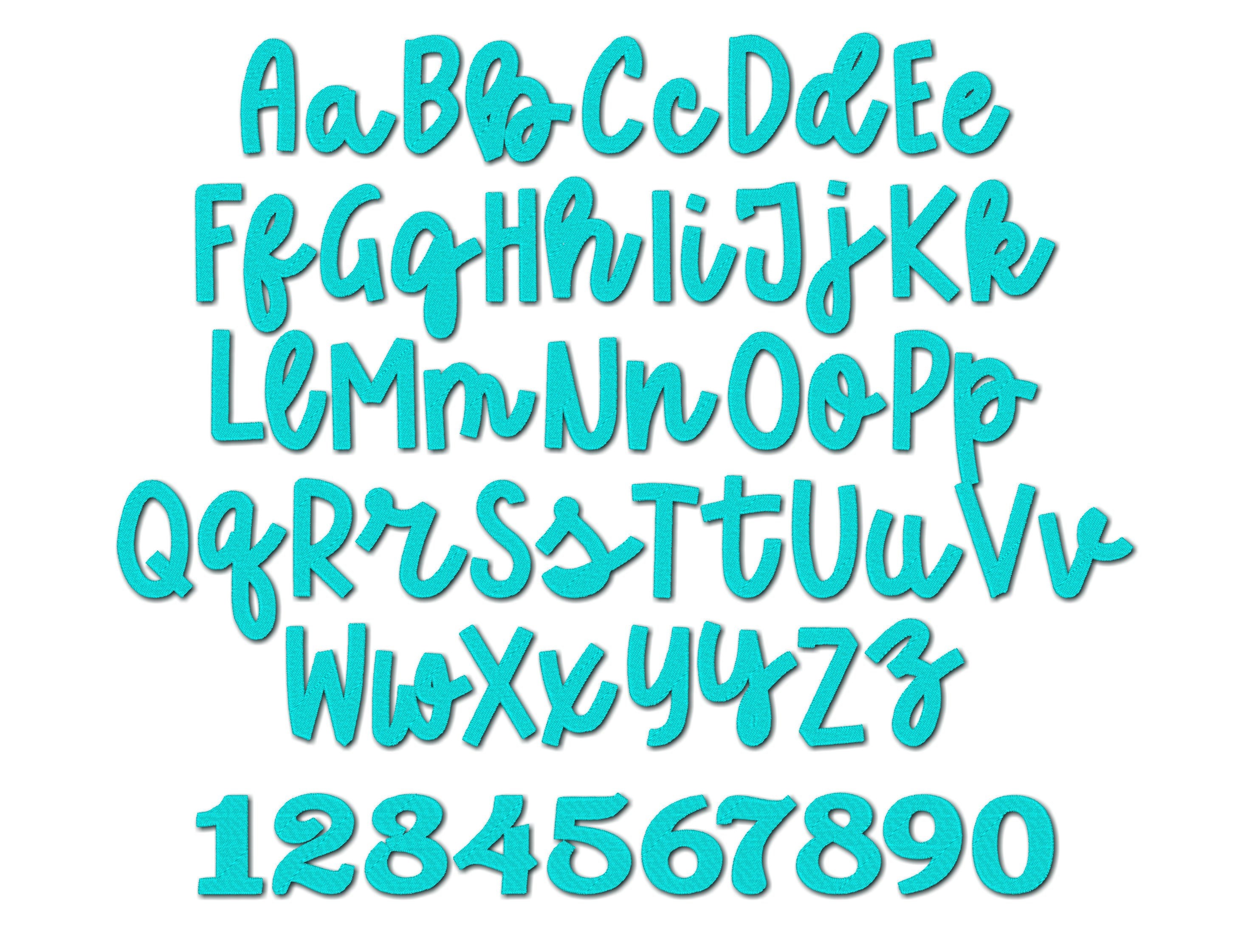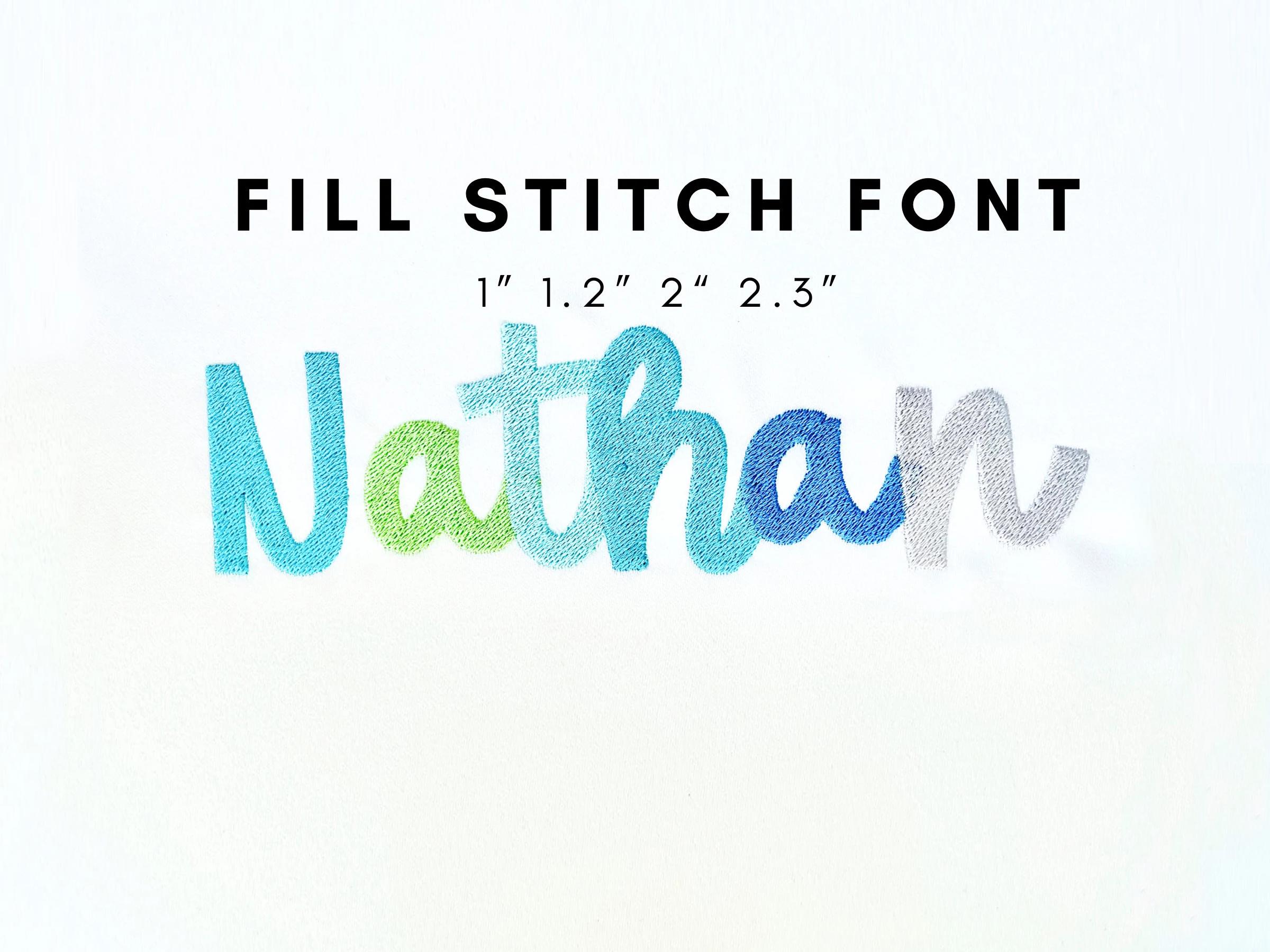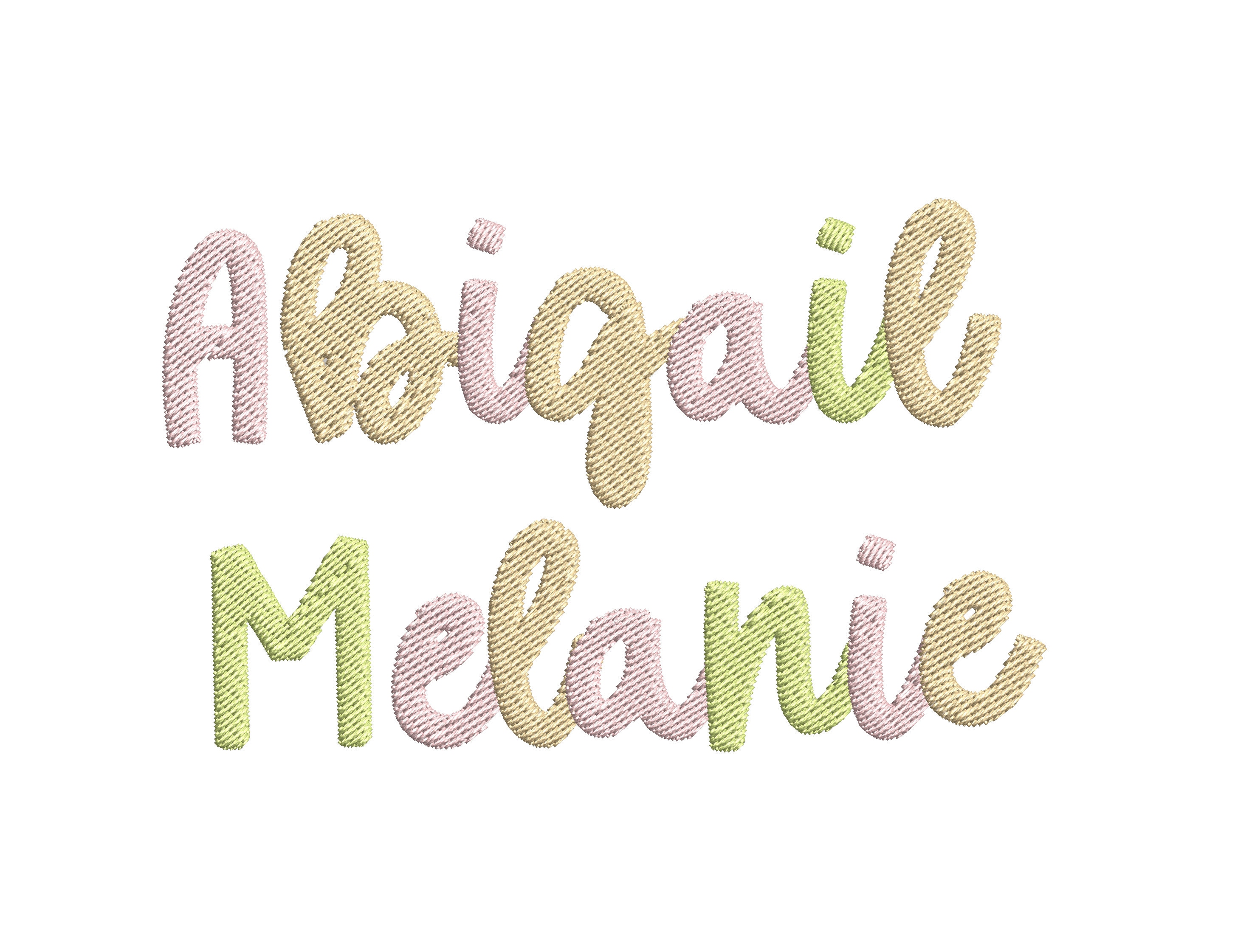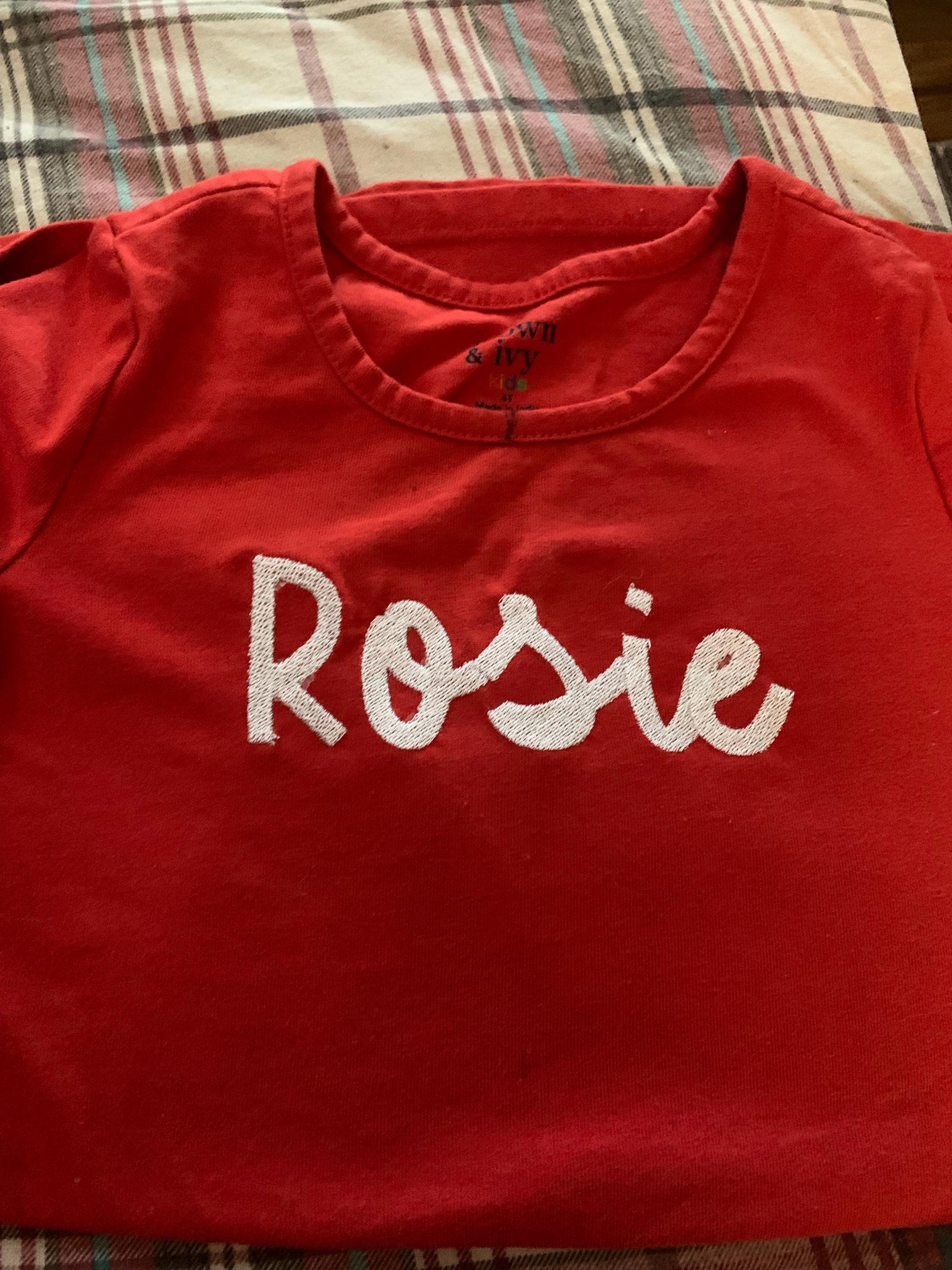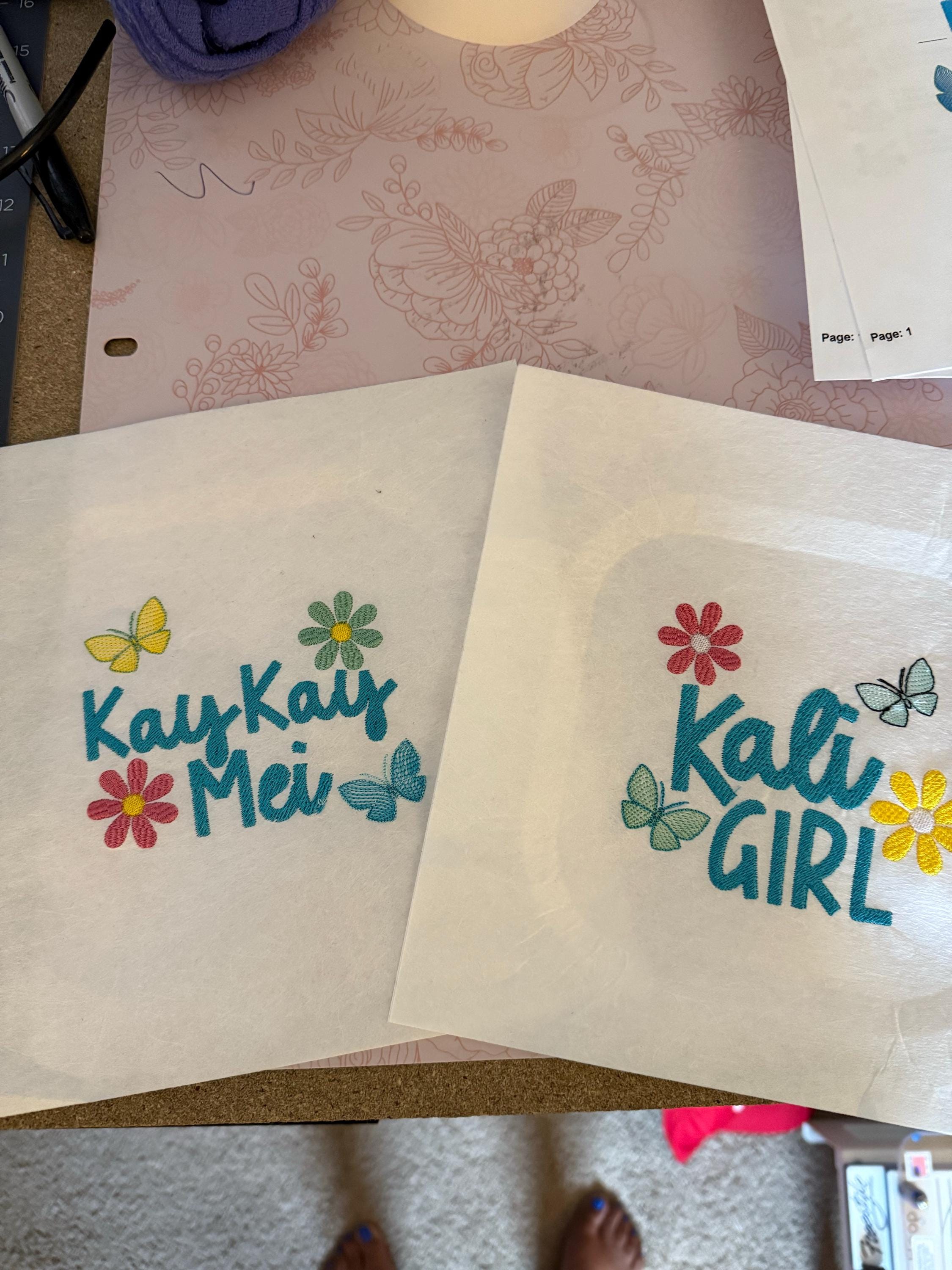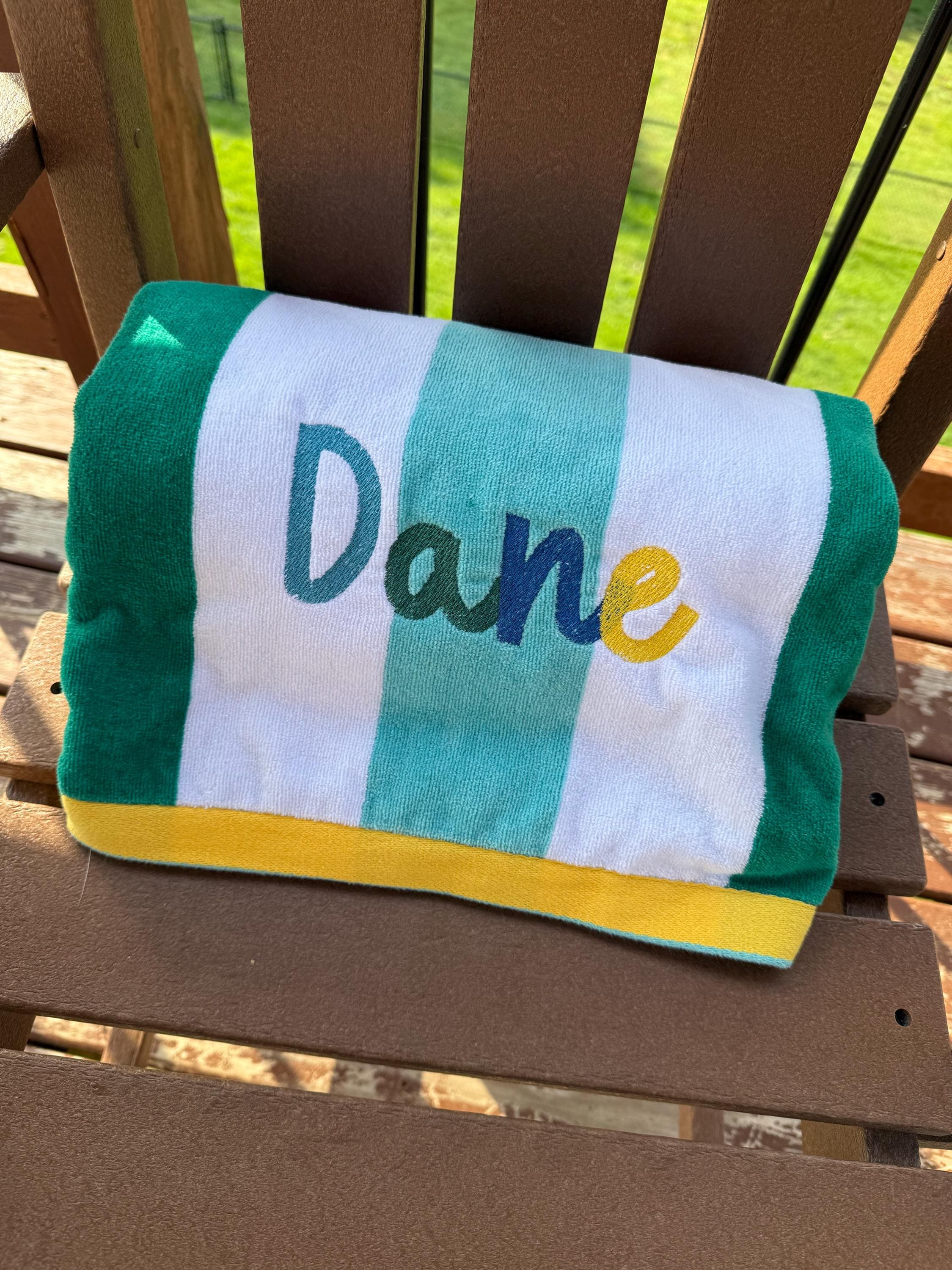
Fill stitch Beauty Font alphabet playful kids baby monogram name machine embroidery designs script font multiple sizes 1.2 up to 2.3 inches, BX included
Whole alphabet A-Z uppercase and lowercase letters, and numbers.